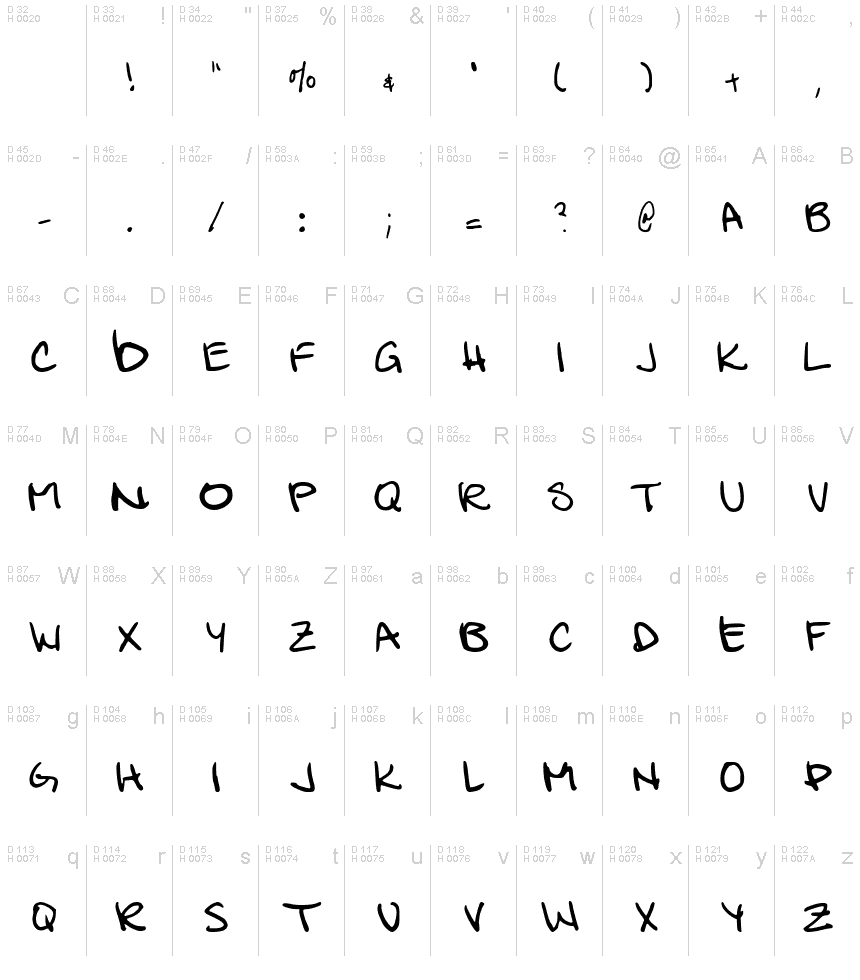
Johanna The Architect H Regular
Meet Johanna The Architect H Regular, the newest addition to the Johanna The Architect font family designed by Rich Williams. This semi-expanded, casual handwritten typeface is perfect for creative projects that require a personal touch. From wedding invitations and greeting cards to social media graphics and branding materials, Johanna The Architect H Regular adds a playful yet sophisticated vibe to any design. Its charming curves and natural flow make it easy to read while still standing out from traditional serif or sans-serif fonts. Elevate your next project with Johanna The Architect H Regular - your audience won't be able to resist its charm!
Johanna developed this particular handwriting style at a Texas architecture school.